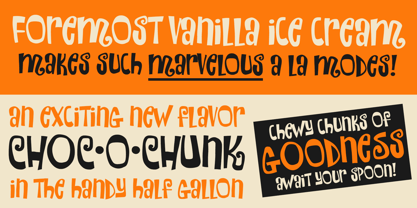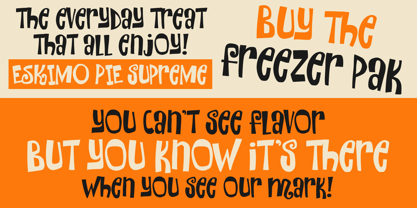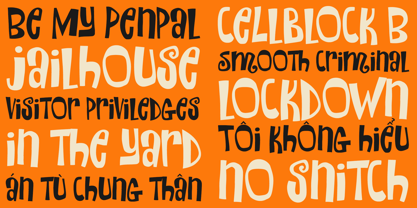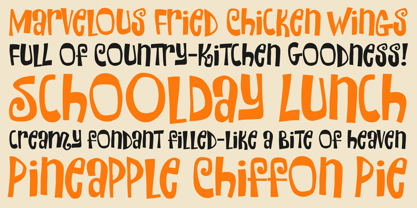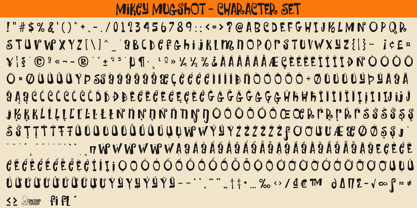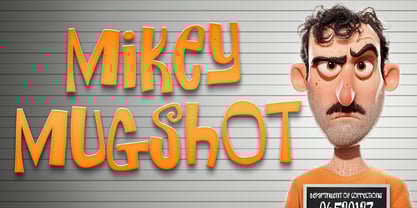
Mikey Mugshot
The Mikey Mugshot Font Family was designed by Brian J. Bonislawsky, Dave Cohen and published by One Eyed Squid. Mikey Mugshot contains 1 styles.
Mikey Mugshot is a mischievous display font with madcap energy, quirky character, and a bold sense of fun. Its playful letterforms bring a slightly unruly, offbeat personality to designs that want to feel lively, unconventional, and full of visual attitude. Ideal for headlines, posters, branding, packaging, logos, social media graphics, and other creative projects that benefit from a cheeky, expressive typographic voice, Mikey Mugshot delivers memorable impact with a mischievous twist. Includes extended Latin language support, including Vietnamese.
About One Eyed Squid
Dave "Squid" Cohen & Brian "Stiggy" Bonislawsky combine their fontmaking talents to bring you an array of fun and entertaining typefaces loaded with animated and diverse retro flavor.You may know Dave Cohen's fonts from Sideshow and Neapolitan type foundries, as you may know Brian Bonislawsky's fonts from Astigmatic (AOETI), Grype, Pink Broccoli, Monogram Fonts Co., Stiggy & Sands, and VersusTwin type foundries.So what is this foundry all about? It's all about bringing collaborative skills to bear to express more of their crazy typographic ideas and create even more exciting fonts to the design community.